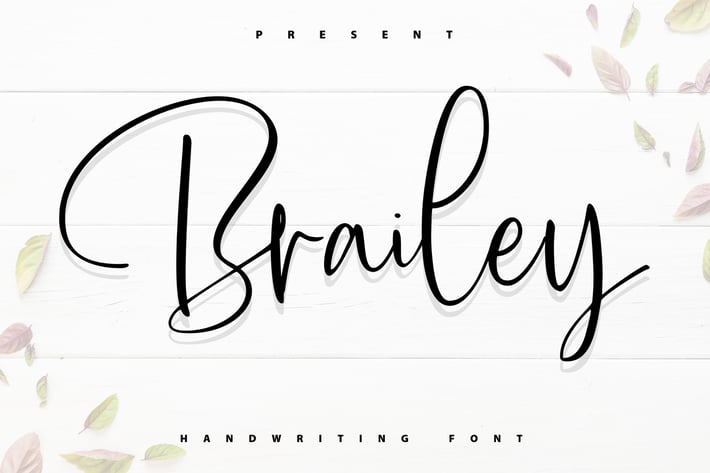
Brailey | Handwriting Font
Brailey | Handwriting Font with a calligraphy style, So beautiful on invitation like greeting cards, branding materials, business cards, quotes, posters, and more!